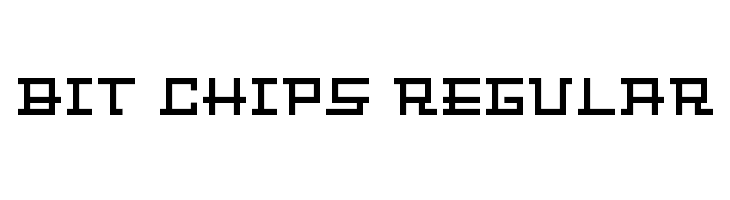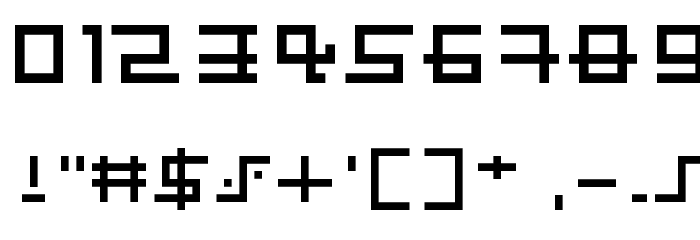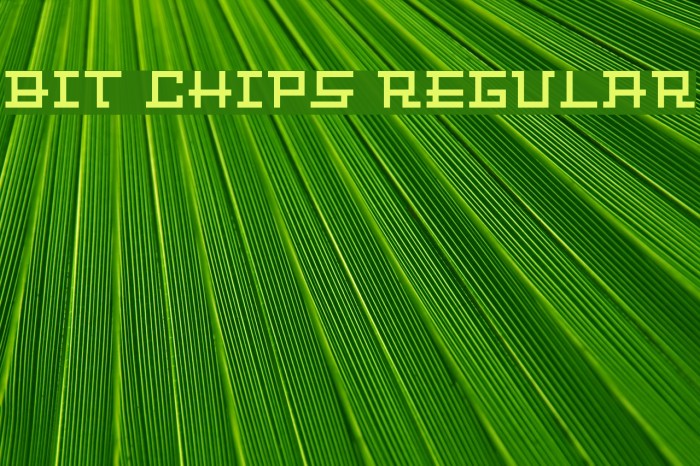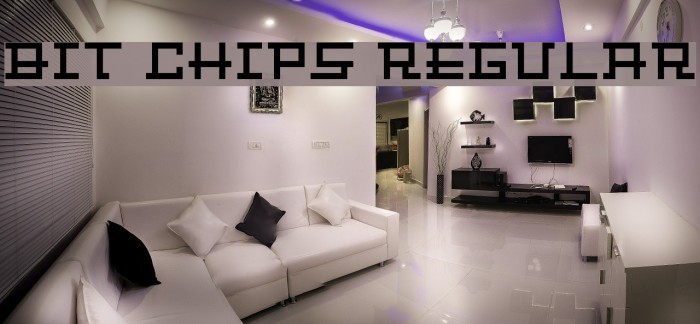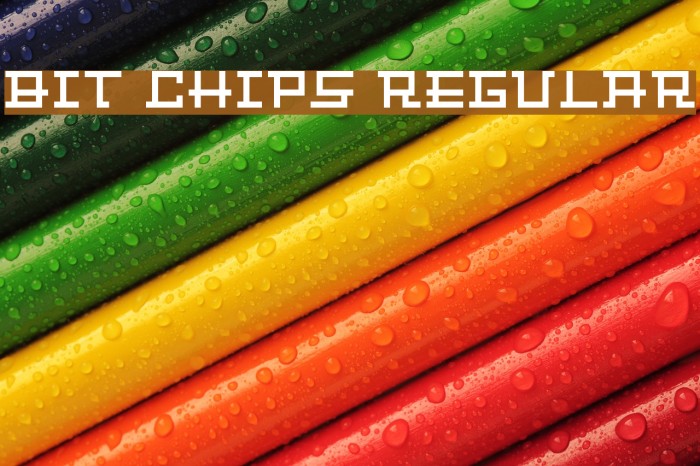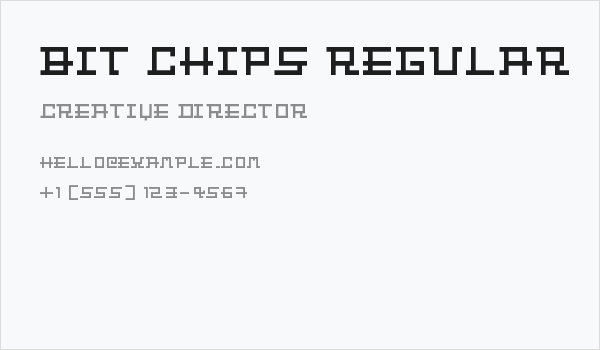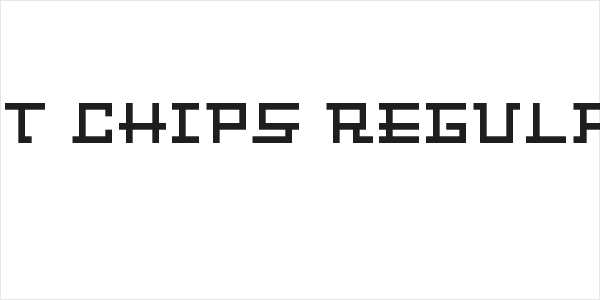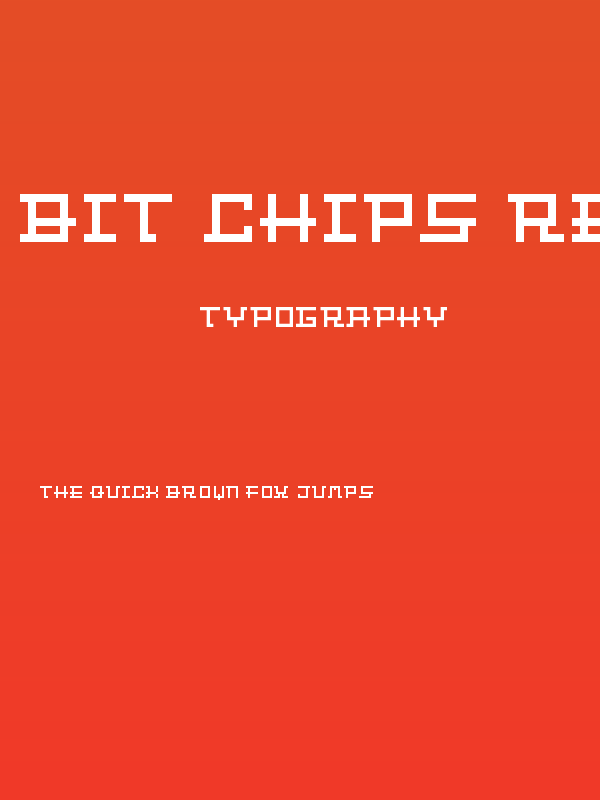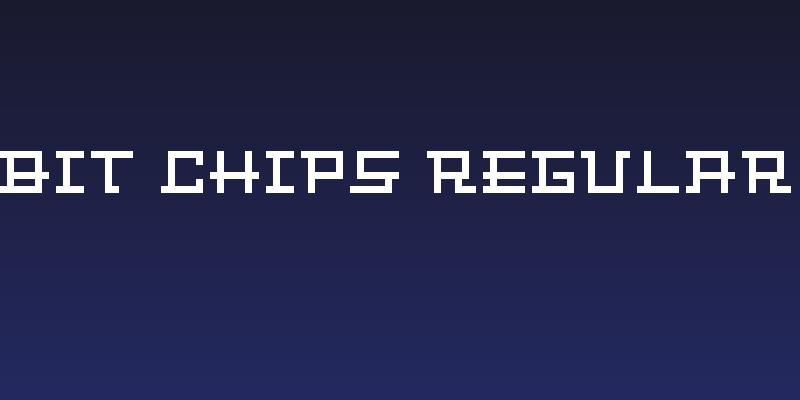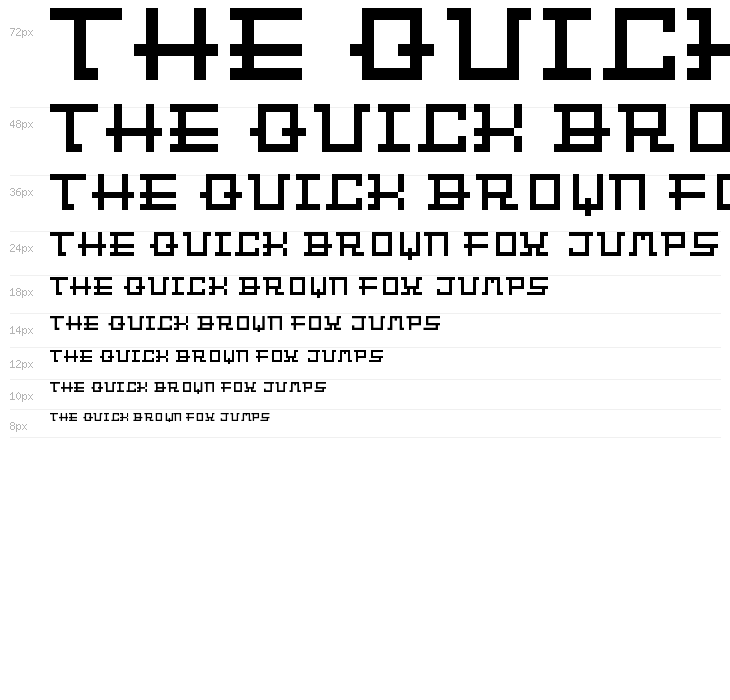
Bit Chips Regular Font
Bit Chips Regular Description
This font features a pixelated, blocky design reminiscent of early digital displays and retro video games. Each character is composed of uniform square blocks, creating a distinctly digital and geometric appearance. The uppercase and lowercase letters maintain a consistent height, contributing to a monospaced feel, although the font is not strictly monospaced. The numerals and special characters follow the same pixelated style, ensuring a cohesive look across all glyphs. This font's nostalgic aesthetic is perfect for projects aiming to evoke a sense of vintage computing or arcade gaming.
| Proposed Projects | Ideal for retro video game designs, tech-themed posters, digital art, and any project seeking a vintage digital look. |